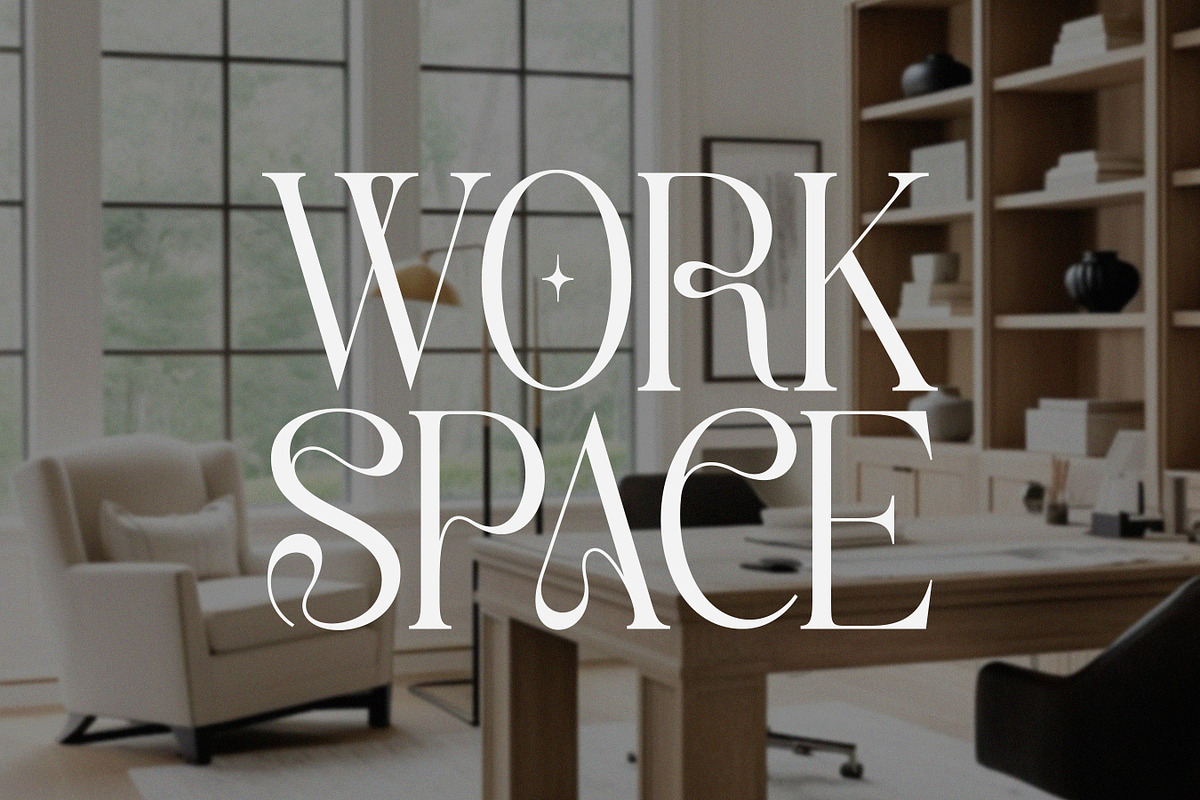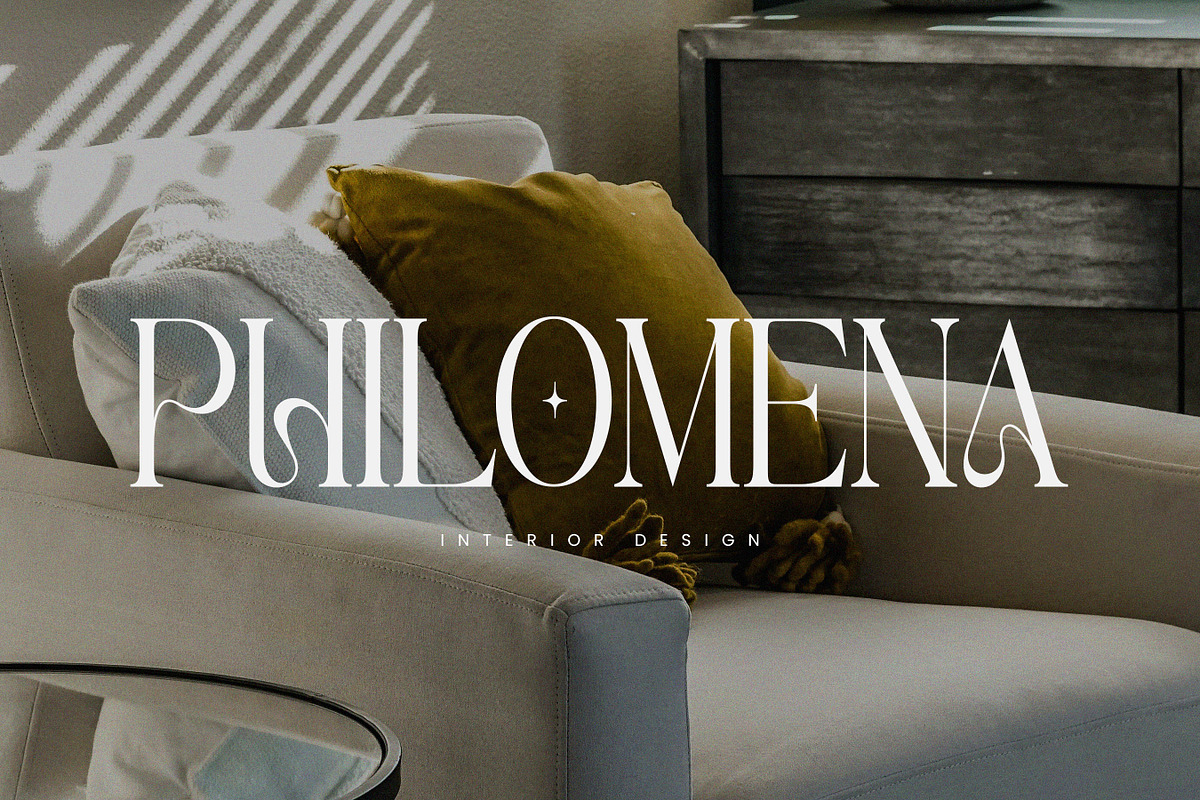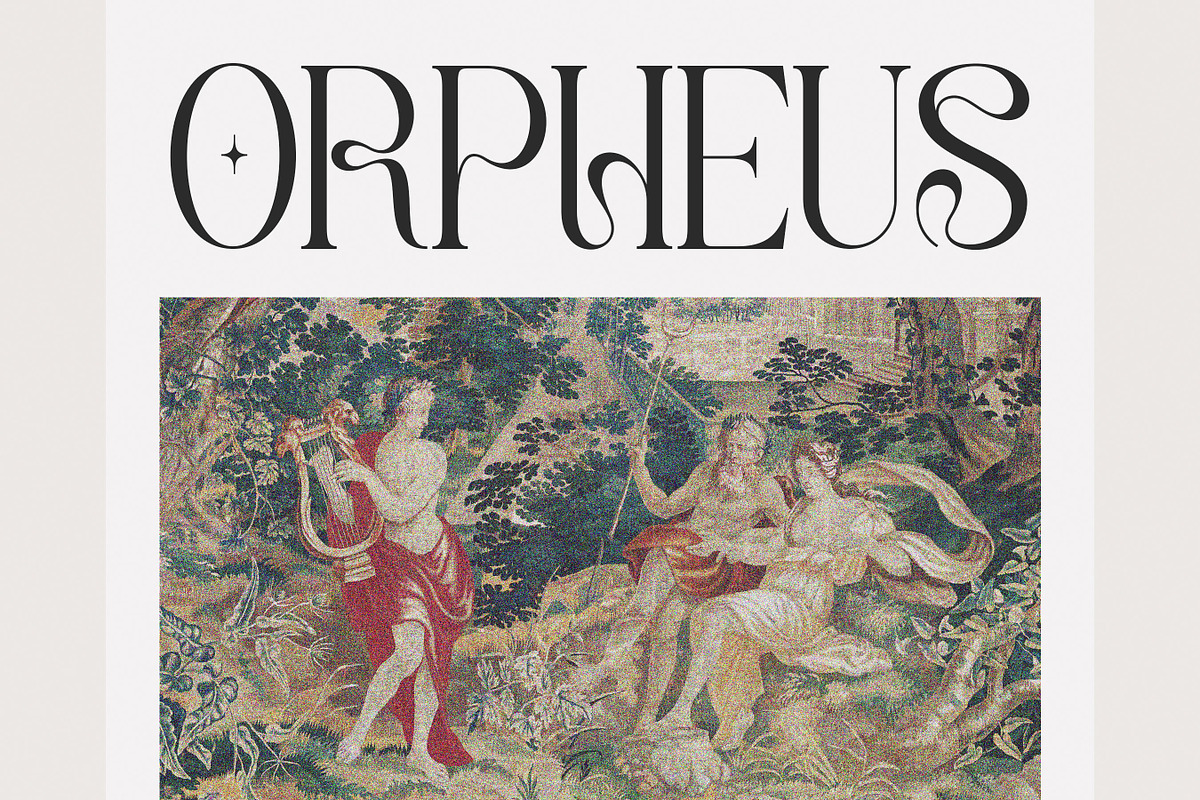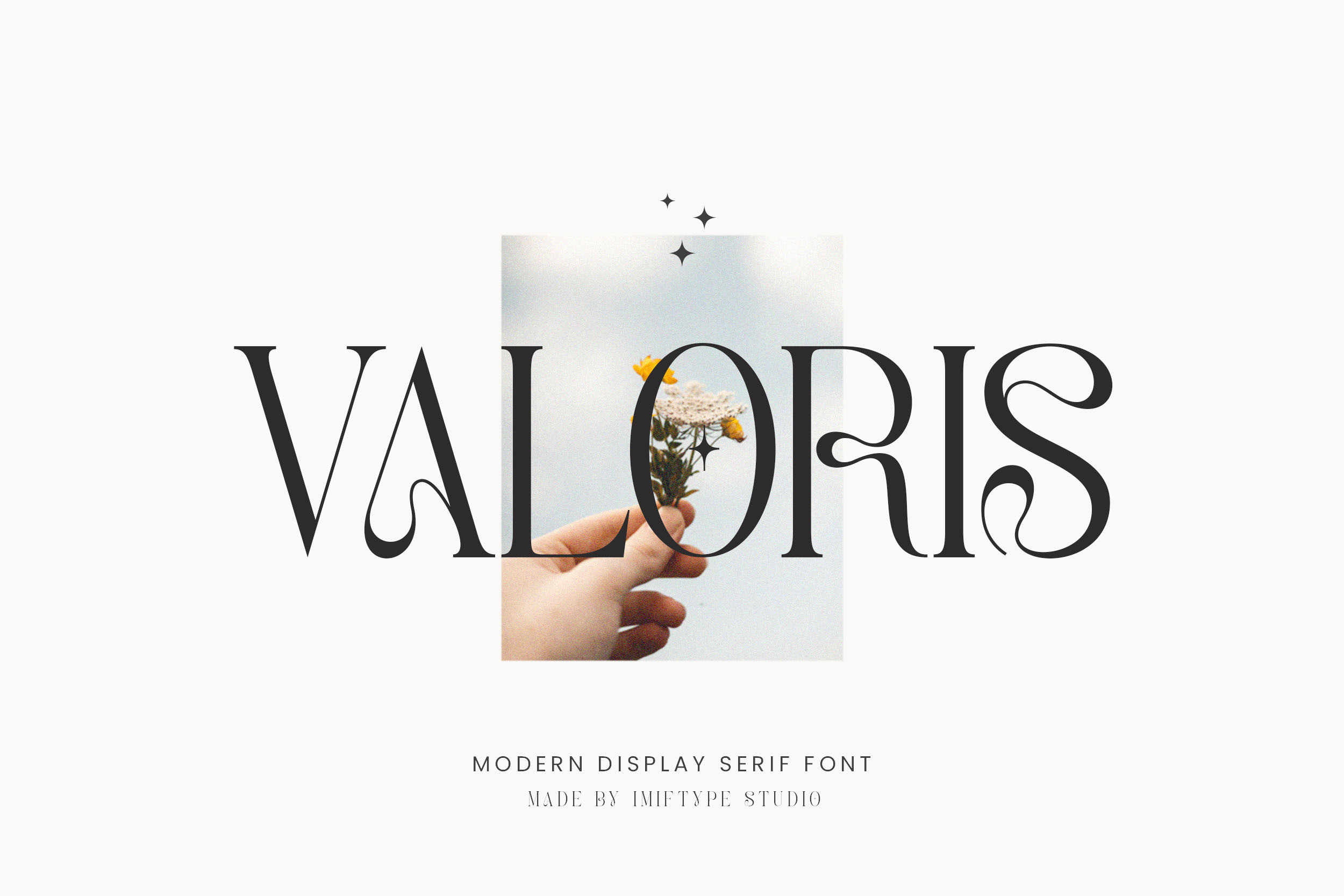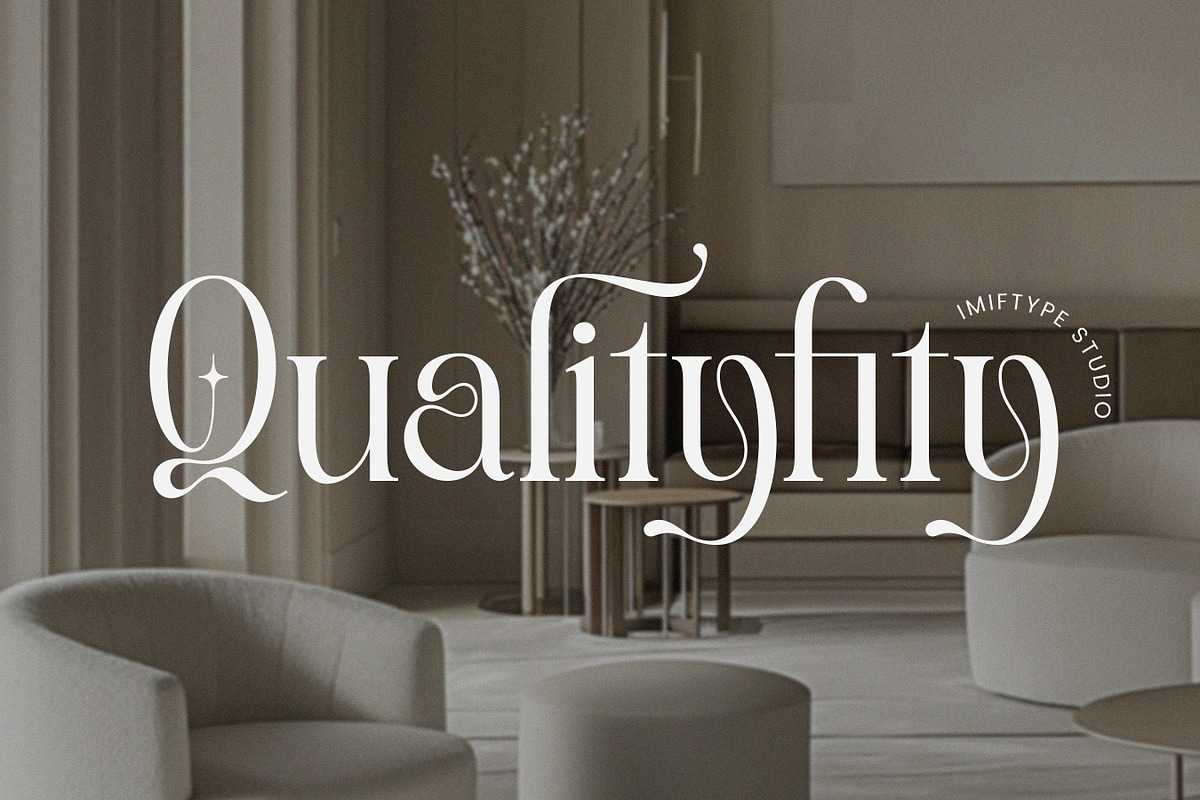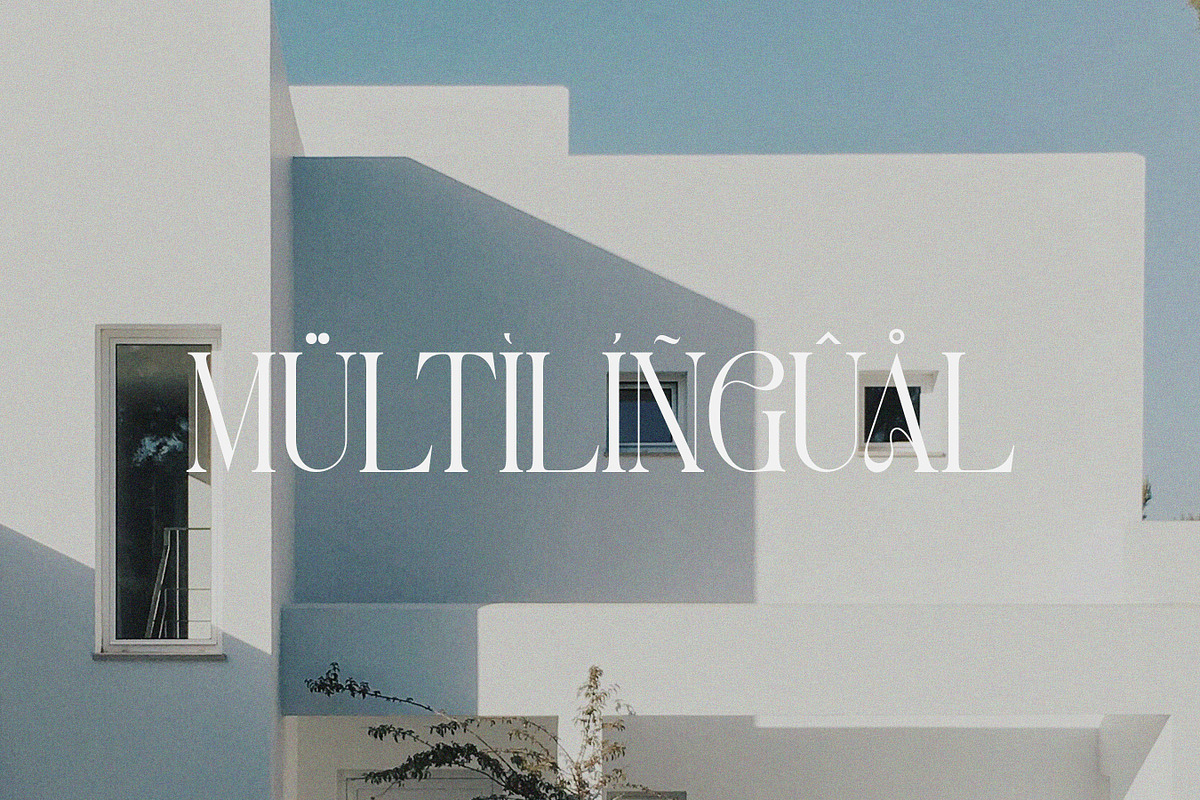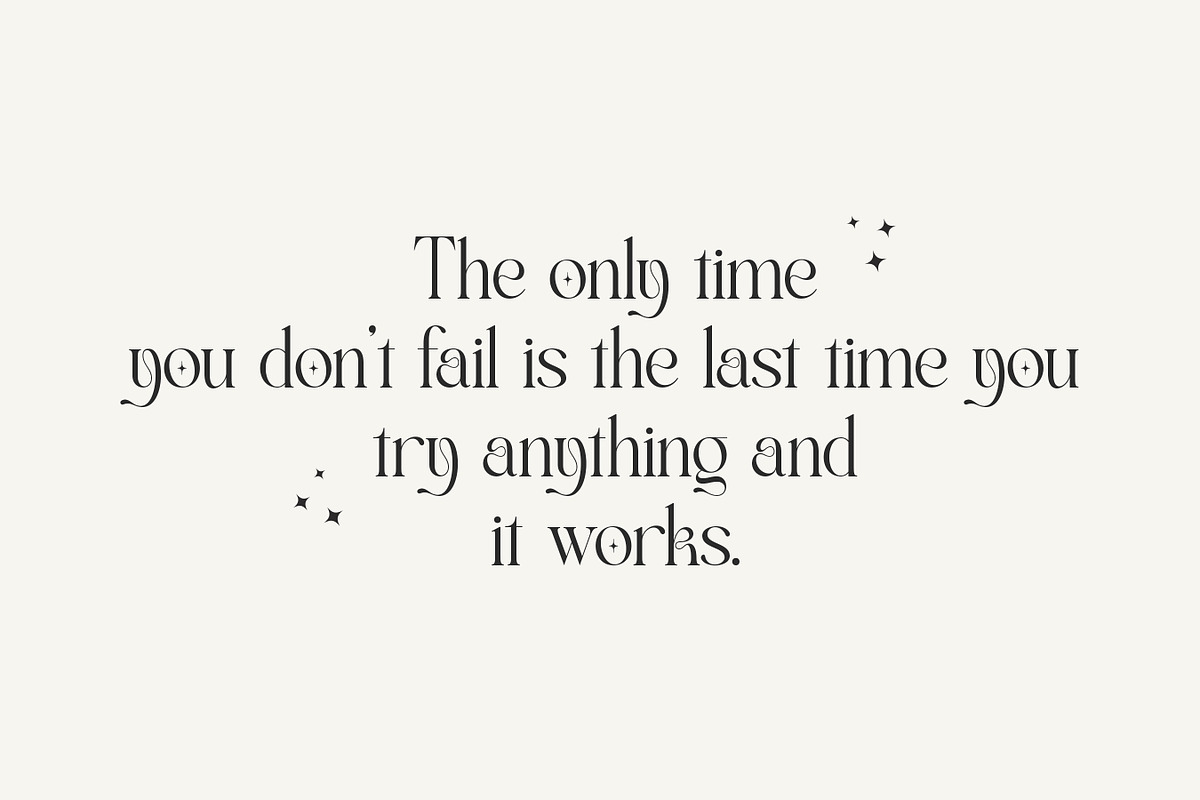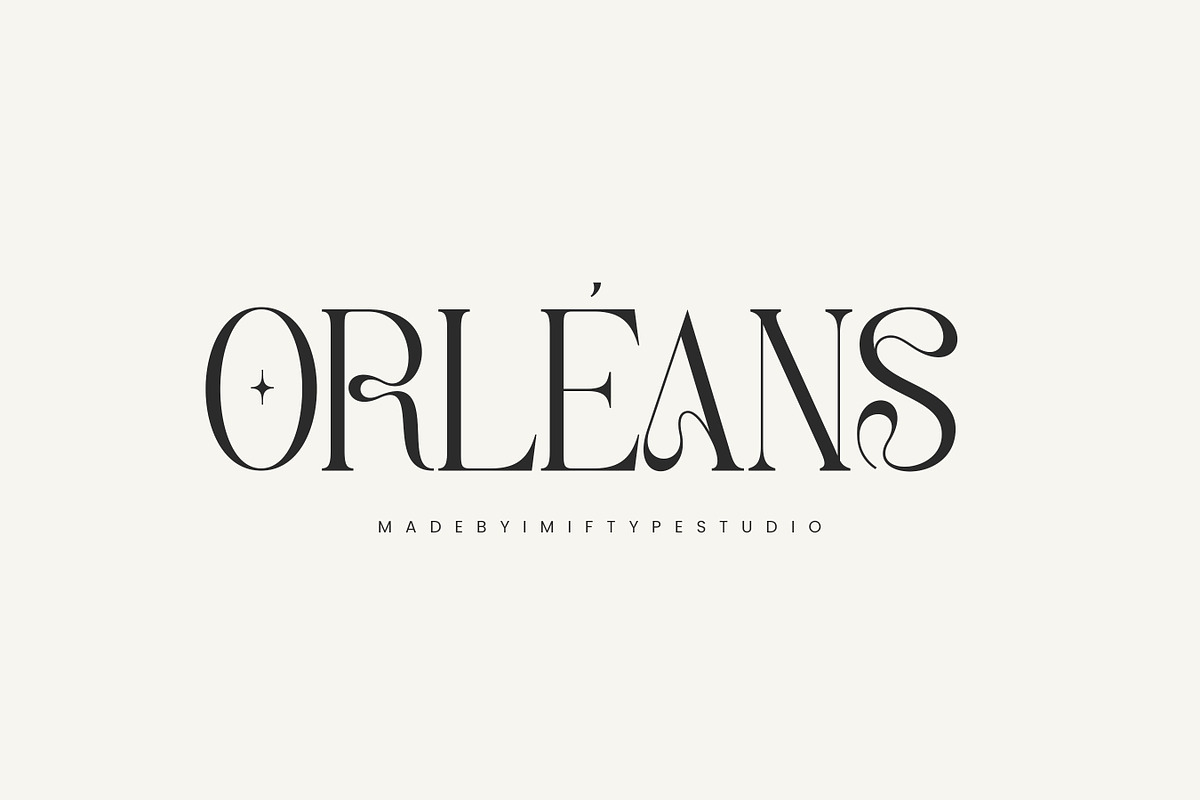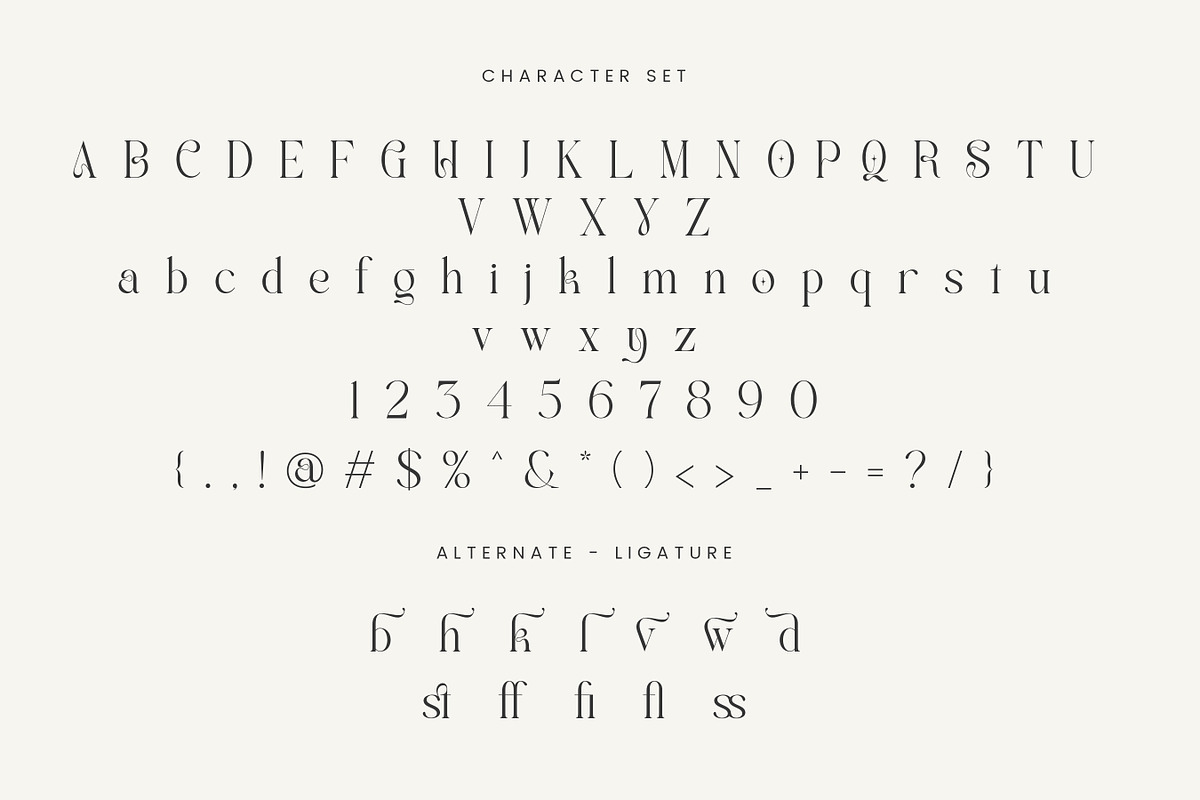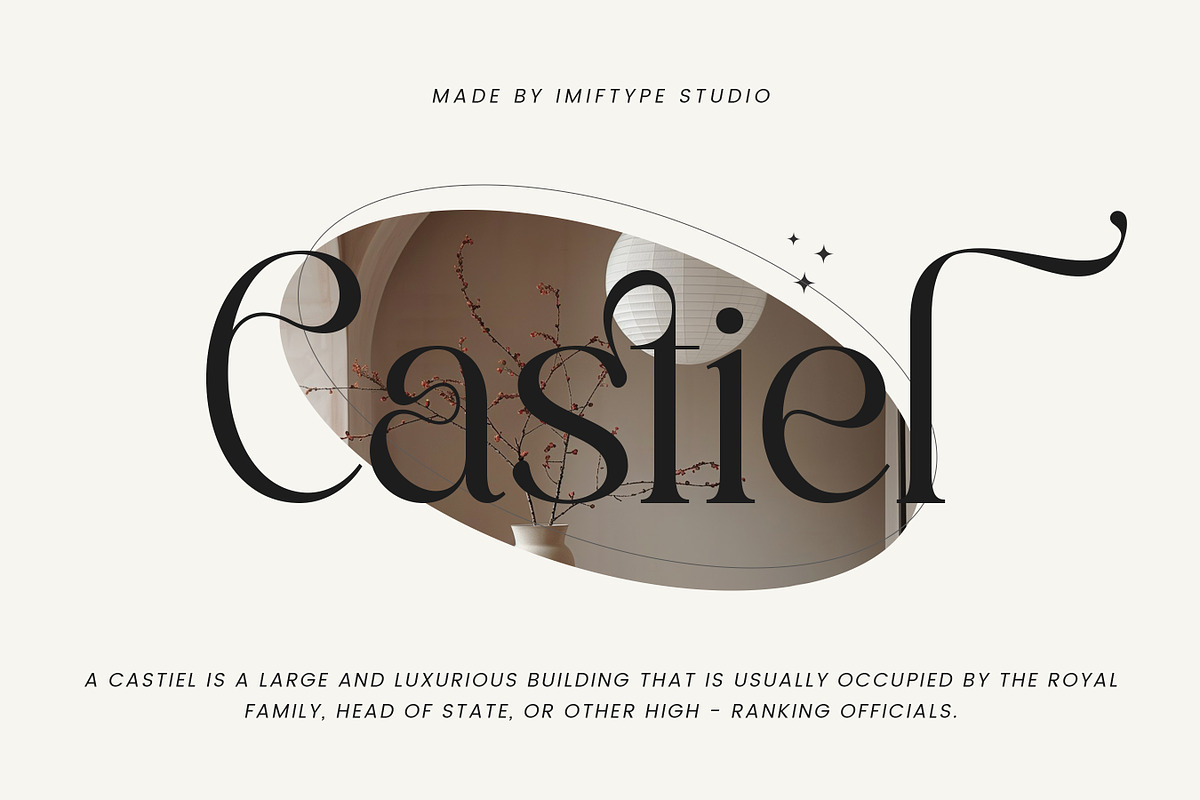
Valoris – Modern Display Serif Font
Valoris is a modern display serif font crafted to deliver elegance, contrast, and a strong visual identity. Featuring refined serifs, stylish curves, and decorative details, Valoris creates a sophisticated look that feels both modern and timeless.
This font is perfect for logos, branding, editorial layouts, fashion designs, magazines, posters, headlines, packaging, and premium visuals. Its display character makes it ideal for titles and statements that need to stand out while maintaining a clean and classy appearance.
Valoris blends classic serif foundations with modern aesthetics, allowing designers to create bold yet graceful typography. Whether used for luxury branding, minimalist layouts, or artistic compositions, this font adds personality, balance, and editorial charm to any project.
Designed with attention to detail and readability, Valoris is a versatile serif font suitable for both digital and print applications.